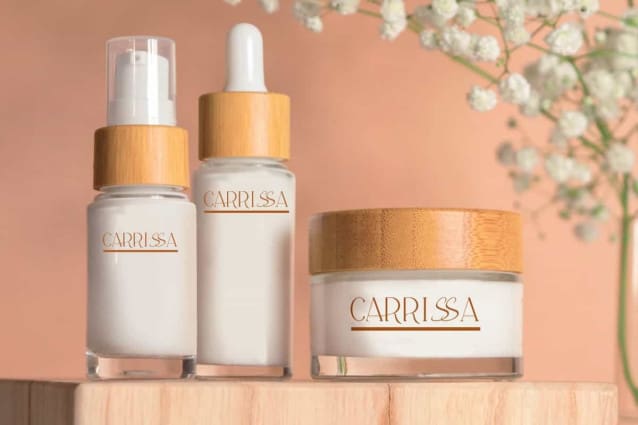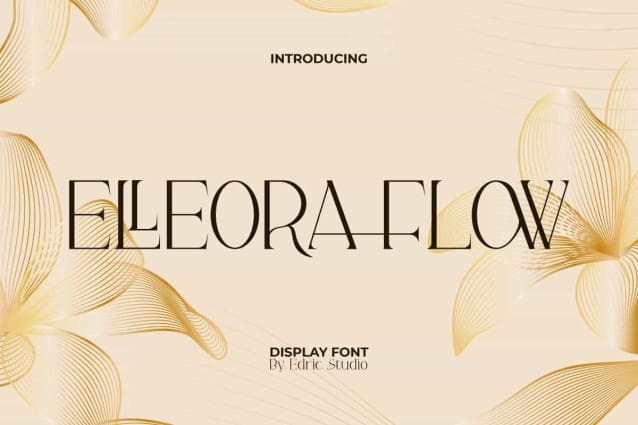
Elleora Flow Font
Elleora Flow Font is an elegant sleek and modern serif display font. This font is like sparkles reflected by diamonds to give it a mesmerizing look. It will be suitable for any business, such as accessories and jewelry, beauty product, entertainment, fashion, party or event, photography, crafts, publishing, restaurant, travel, writer, and many more!
Elleora Flow Font comes with full set of Uppercase and Lowercase Basic Characters, Number, a large range of Punctuation, Symbol, and Ligature. It has luxury characters set, perfectly managed with well spaced and kerning. Elleora Flow Font will be able to complement for any design (with extended license) including: brand image, cover, custom design, invitation, label, merchandise, packaging design, poster, quote, screen print, signage, stationery, sticker, title, website page, etc.